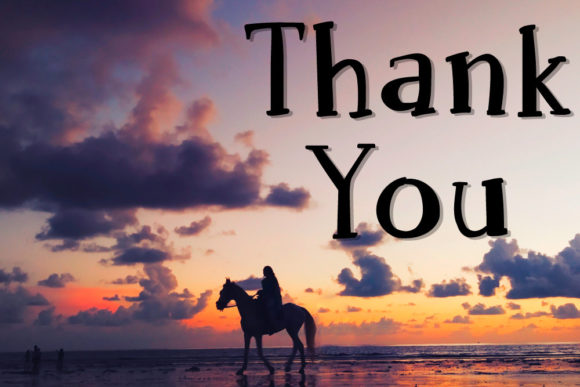
Unleash Your Creativity with Claverty Font
Have you ever been working on a design project, and suddenly you get that spark of creativity? You envision a beautiful, laid-back vibe that screams “relaxation” and “fun.” That’s where Claverty Font comes in – a casual and playful serif font designed to bring that exact atmosphere to your creations.
Claverty Font is perfect for designers who want to add a touch of informality to their projects. Its trendy vibe and relaxed style make it an ideal choice for anything from social media graphics to blog posts, and even branding materials. With Claverty Font, you can create content that feels approachable, friendly, and engaging – without sacrificing style or sophistication.
Claverty Font Key Features
- Size: Supports 6 font sizes, ranging from 12 to 72 points, making it suitable for various design applications.
- Unique Characteristics: Claverty Font features a distinctive blend of modern and vintage elements, with intricate details and ornate flourishes.
- Language Support: Supports a wide range of languages, including Latin, Cyrillic, and Greek scripts, making it a versatile choice for global designs.
- Font Styles: Includes 6 font styles, including regular, bold, italic, bold italic, condensed, and expanded, offering flexibility in design applications.
Review of Claverty Font
Overall, I think Claverty is a solid font that could be a great addition to many projects. ✨ The bold and modern aesthetic it brings is undeniably eye-catching, and it’s perfect for use in titles, headings, and other areas where you want to draw attention.
One of the things that stands out about Claverty is its versatility. ✨ It works well in both digital and print formats, making it a great choice for designers who need a font that can adapt to different mediums. Additionally, the font’s high level of legibility ensures that it’s easy to read, even at smaller font sizes.
While Claverty is a great font, there are a few limitations to be aware of: ⚠️ The font’s limited character set may not be suitable for projects that require a wide range of special characters or languages. Additionally, the font’s bold weight can sometimes make it difficult to read at very small sizes.
In conclusion, Claverty is a well-designed font that is sure to add a touch of modernity to any project. While it may have some limitations, its versatility and high level of legibility make it a great choice for designers looking for a reliable font.
Design Recommendations
- Use Claverty for titles and headings to add a touch of modernity to your design.
- Pair Claverty with a more legible font for body text to ensure maximum readability.
- Avoid using Claverty at very small sizes, as the bold weight can make it difficult to read.
Claverty Font Practical Application Guide
Claverty font is ideal for creative projects, such as graphic design, digital art, and typography.
Use Claverty font to add a touch of elegance and sophistication to your designs.
Experiment with different font sizes and styles to create a unique look.
Alternatives to Claverty Font for Designers
Great Vibes is a beautiful, modern script font designed by Handmade Type. It’s ideal for creating elegant and stylish designs, such as wedding invitations, logos, and branding materials. Great Vibes is more elegant and refined compared to Claverty Font, making it suitable for high-end designs.
Pacifico is a stunning script font designed by Vernon Adams. It’s perfect for creating unique and eye-catching designs, such as posters, flyers, and social media graphics. Pacifico is more fluid and dynamic compared to Claverty Font, making it suitable for creative and expressive designs.
Carolyna Pro is a modern script font designed by Carolyna. It’s ideal for creating sophisticated and stylish designs, such as business cards, brochures, and packaging materials. Carolyna Pro is more refined and polished compared to Claverty Font, making it suitable for corporate and professional designs.
Alex Brush is a beautiful script font designed by Lauren Wiley. It’s perfect for creating elegant and sophisticated designs, such as invitations, certificates, and awards. Alex Brush is more refined and elegant compared to Claverty Font, making it suitable for high-end and luxury designs.
Does Claverty Font support Unicode characters?
Yes, Claverty Font supports a wide range of Unicode characters, including Latin, Cyrillic, and Greek scripts. This makes it an ideal choice for designers working on projects that require multilingual support.